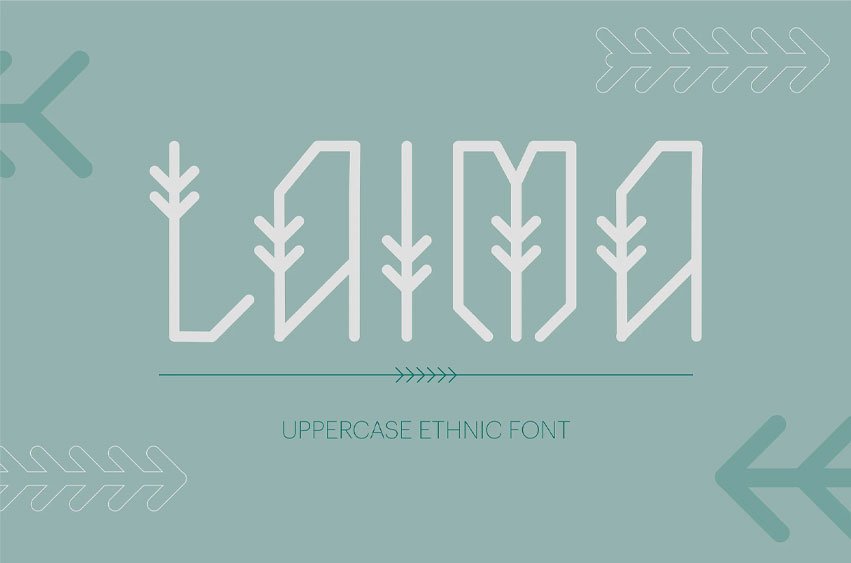
Laima Uppercase Font
Laima Uppercase Font I would like to introduce unique uppercase ethnic font LAIMA inspired by Baltic ethnic sign “Laimas slotina” that visually looks like a branch of pine tree.
With ethnic unique style this font will be perfect for various design projects such as ethnic style posters, cards, book covers, quotes, logo, ethnic elements for fashion, clothe and t-shirts.